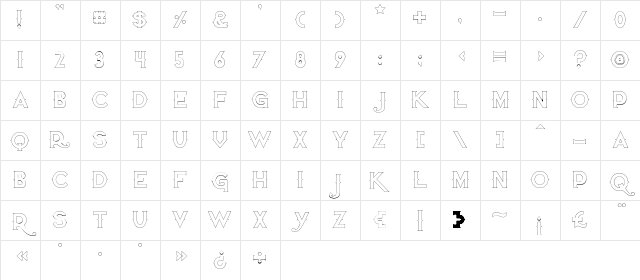
Quiet the Thief Empty
Foundry: Matthew Tyndall
Designer: Matthew Tyndall
Design Context for Quiet the Thief
Quiet the Thief is a composed and adaptable typeface that performs quietly and consistently across a wide range of design contexts.